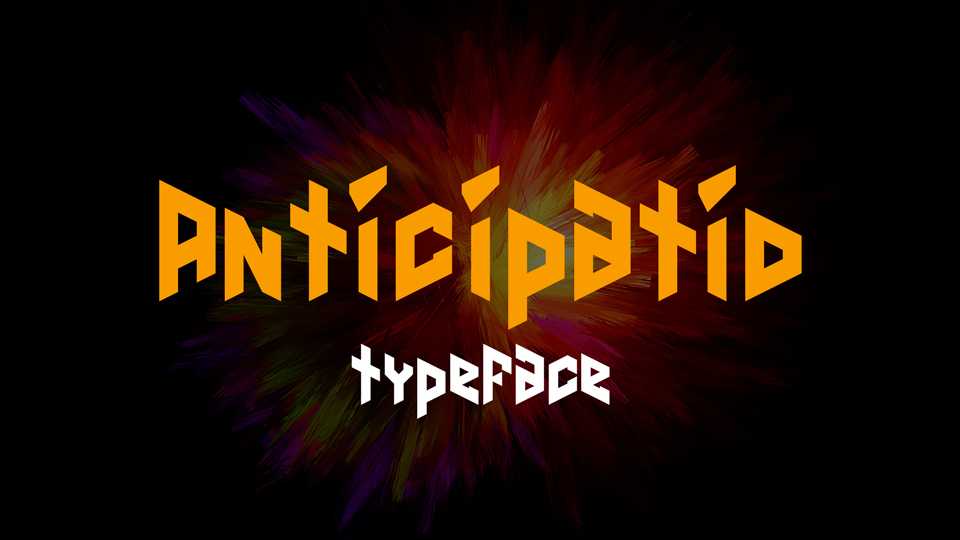
Download Anticipatio font, a tiny angular typeface with geometric sharp forms. Anticipatio fits for headlines, posters, prints and other creative typographic projects. It contains basic Latin character set (100+ glyphs).
Designer: Doug Peters